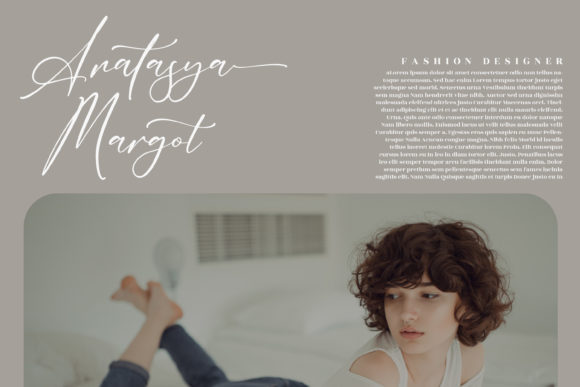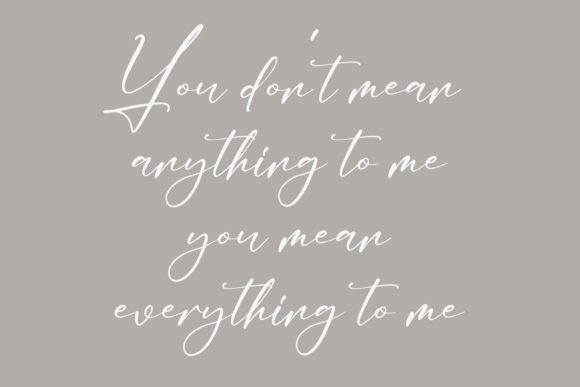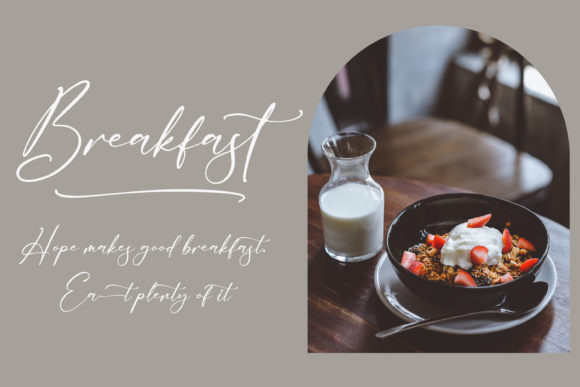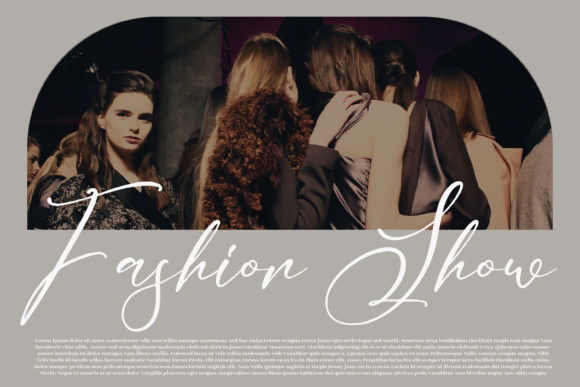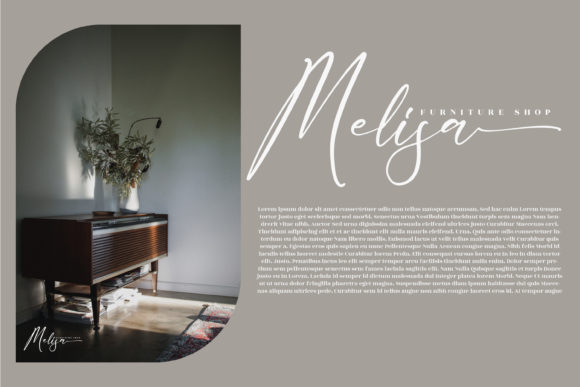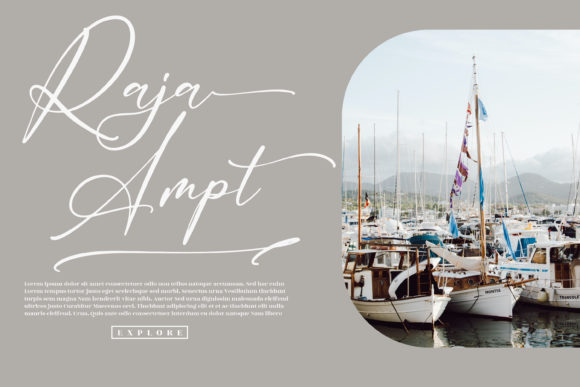
The Perfect Stroke of Creativity
There’s nothing quite like the feeling of bringing an idea to life on paper. The scratch of a pen, the flow of ink, and the beauty of a well-crafted handwritten letter. For designers, this moment is a moment of pure magic, where creativity knows no bounds. And for those who crave this sense of elegance and sophistication, there’s one font that stands out from the rest: Delistaria Signature Font.
This exquisite handwritten font is more than just a pretty face – it’s a powerful tool for designers who demand the best. With its delicate, flowing lines and perfectly balanced characters, Delistaria Signature Font is the perfect match for a wide range of designs, from elegant invitations to beautiful branding materials. And with its PUA encoding, accessing all of the glyphs and swashes is a breeze, giving designers the freedom to unleash their creativity and take their designs to the next level.
Delistaria Signature Font Key Features
- Unique Characteristics: Delistaria Signature Font features a unique blend of modern and vintage elements, with intricate details and ornate flourishes, making it perfect for creating high-end designs, luxury branding, and signature logos.
- Font Style: Script, Brush, Handwritten
Delistaria Signature Font Review
I recently had the chance to work with Delistaria Signature Font, and I must say, it’s a mixed bag. On one hand, it’s a beautiful, elegant script font that’s perfect for creating a sense of sophistication and luxury. ✨ The flowing lines and soft curves make it a joy to work with, and it’s ideal for projects that require a high-end feel.
- ✨ Elegant and sophisticated feel
- ✨ Perfect for high-end branding and marketing materials
- ✨ Easy to use and customize
However, there are a few limitations that I’d like to mention:
- ⚠️ Limited character set – it’s not suitable for projects that require a lot of special characters or accents
- ⚠️ May not be the best choice for projects that require a lot of bold or italic text
Overall, I think Delistaria Signature Font is a great choice for projects that require a touch of elegance and sophistication. While it may not be the most versatile font, it’s definitely worth considering for the right projects. With a little bit of creativity and planning, it can really shine and make your designs stand out.
Delistaria Signature Font: A Practical Application Guide
To get the most out of Delistaria Signature Font, experiment with different font sizes and styles to create a unique and eye-catching design.
Pair Delistaria Signature Font with other elegant fonts to create a sophisticated look.
Delistaria Signature Font is perfect for:
Business cards and letterheads
Brand logos and typography
Editorial and magazine designs
Alternatives to Delistaria Signature Font
Great Vibes is a beautiful script font that works well for creative and artistic projects. It has a fluid, handwritten feel that’s perfect for branding, invitations, and other designs where a personal touch is needed.
Compared to Delistaria Signature Font, Great Vibes has a more fluid and cursive feel, making it ideal for projects that require a sense of movement and flow.
Carolyna Pro is a modern script font that’s perfect for luxury brands and high-end designs. It has a sophisticated, elegant feel that’s ideal for projects that require a touch of class and sophistication.
Compared to Delistaria Signature Font, Carolyna Pro has a more refined and polished feel, making it ideal for projects that require a sense of luxury and high-end quality.
Alex Brush is a elegant script font that’s perfect for creative and artistic projects. It has a beautiful, handwritten feel that’s ideal for branding, invitations, and other designs where a personal touch is needed.